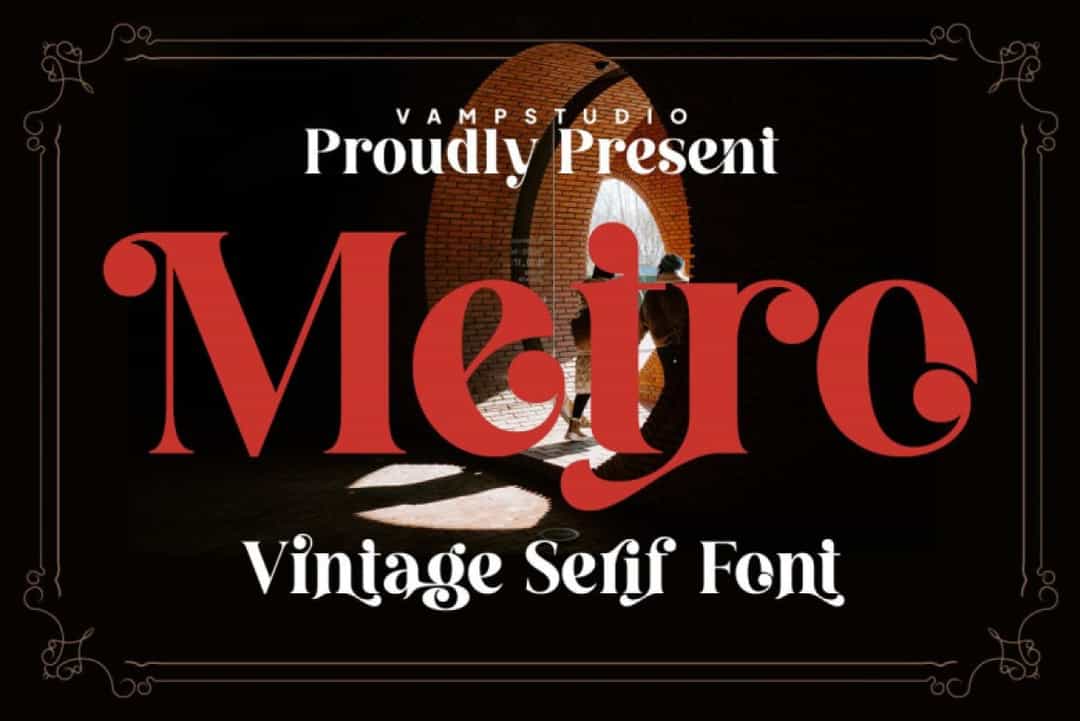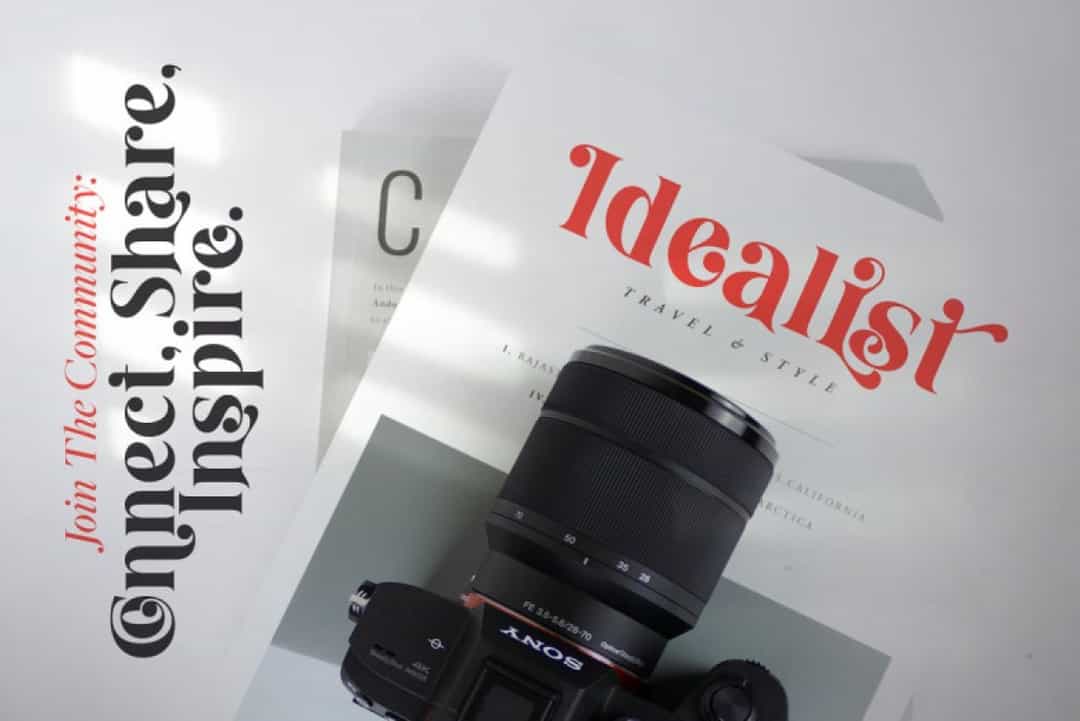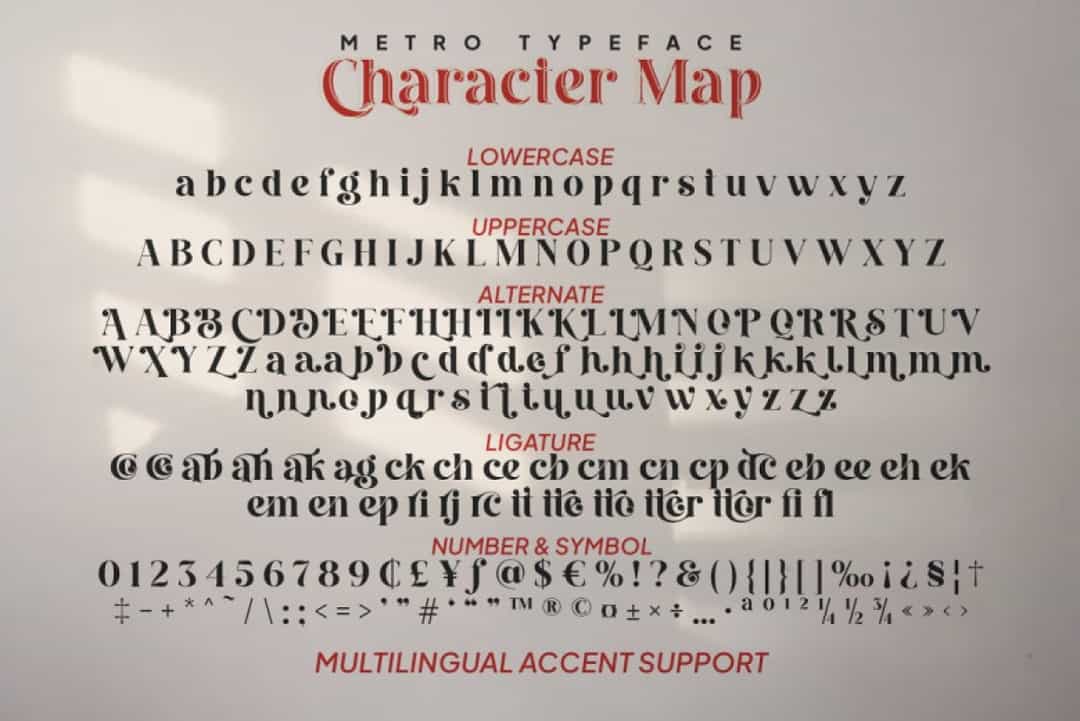
Metro is an elegant and classic serif font designed by skilled hands for modern projects that require elegant writing skills, such as branding, logo wedding designs Social media posts advertising packaging products design labels for photo products watermark stationary invitations etc.